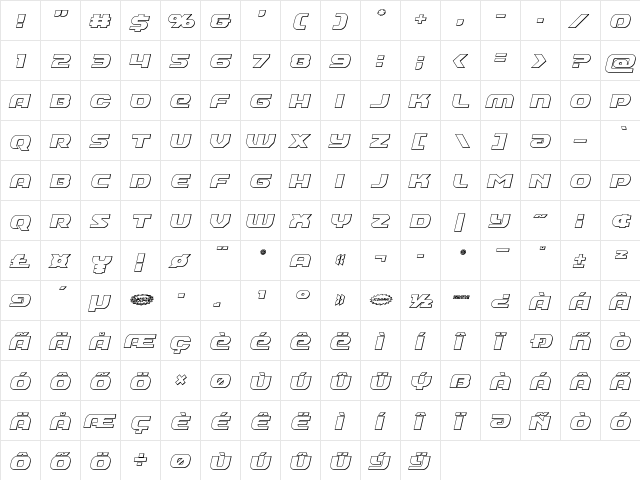
Annapolis Outline Italic Outline Italic
Design Context for Annapolis Outline Italic Typeface
Annapolis Outline Italic is built around its visual character rather than neutral utility — its distinctive forms are designed to make an impression at display sizes. Its italic angle brings a sense of urgency and motion to the letterforms.
Font Pairing: Pair with a clean neutral sans-serif for body copy to let Annapolis Outline Italic's character lead without overwhelming the composition.
Pro Tip: Use Annapolis Outline Italic exclusively at display sizes — it was designed to be seen, not read at length. Let a neutral companion handle body copy.